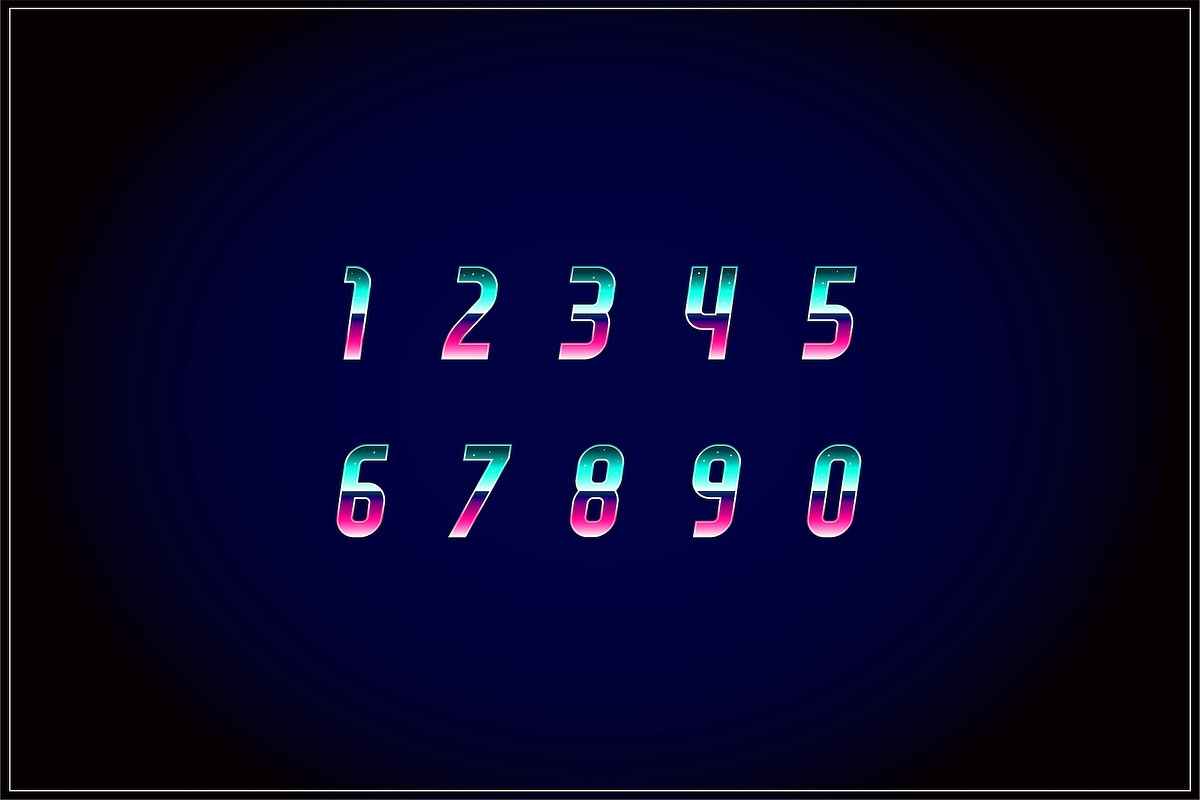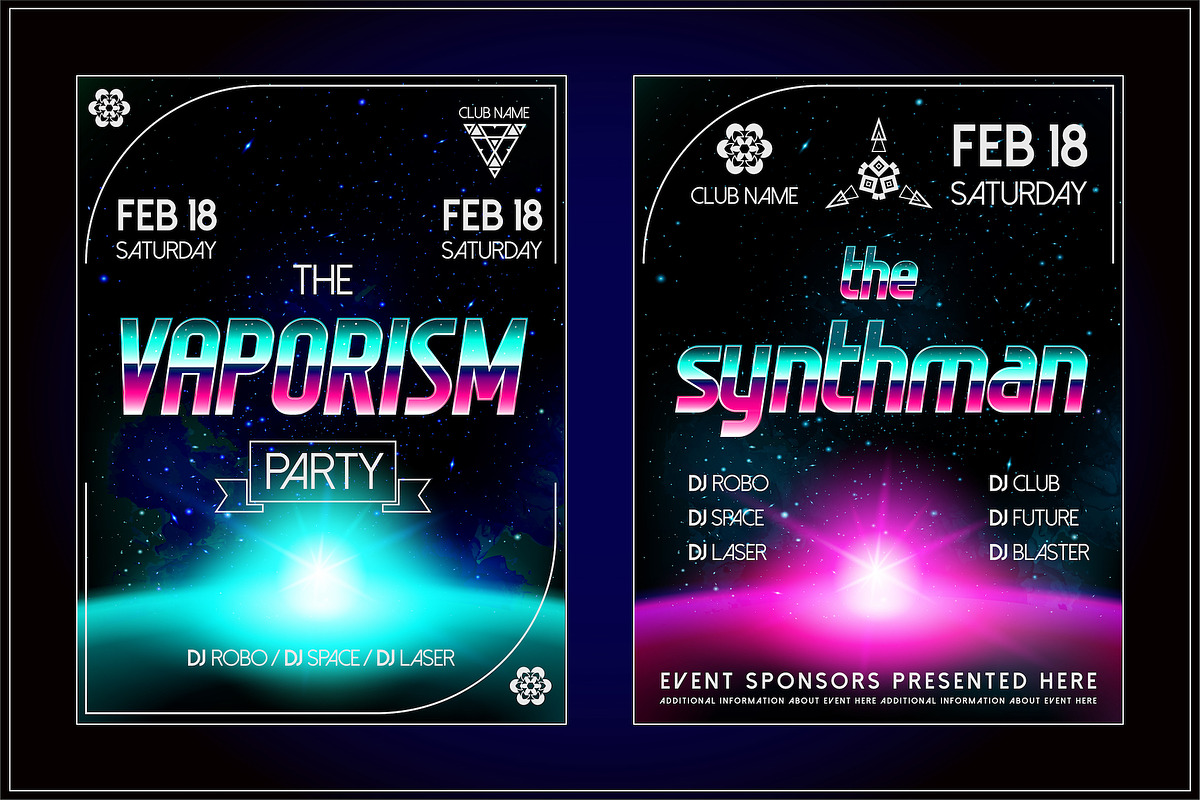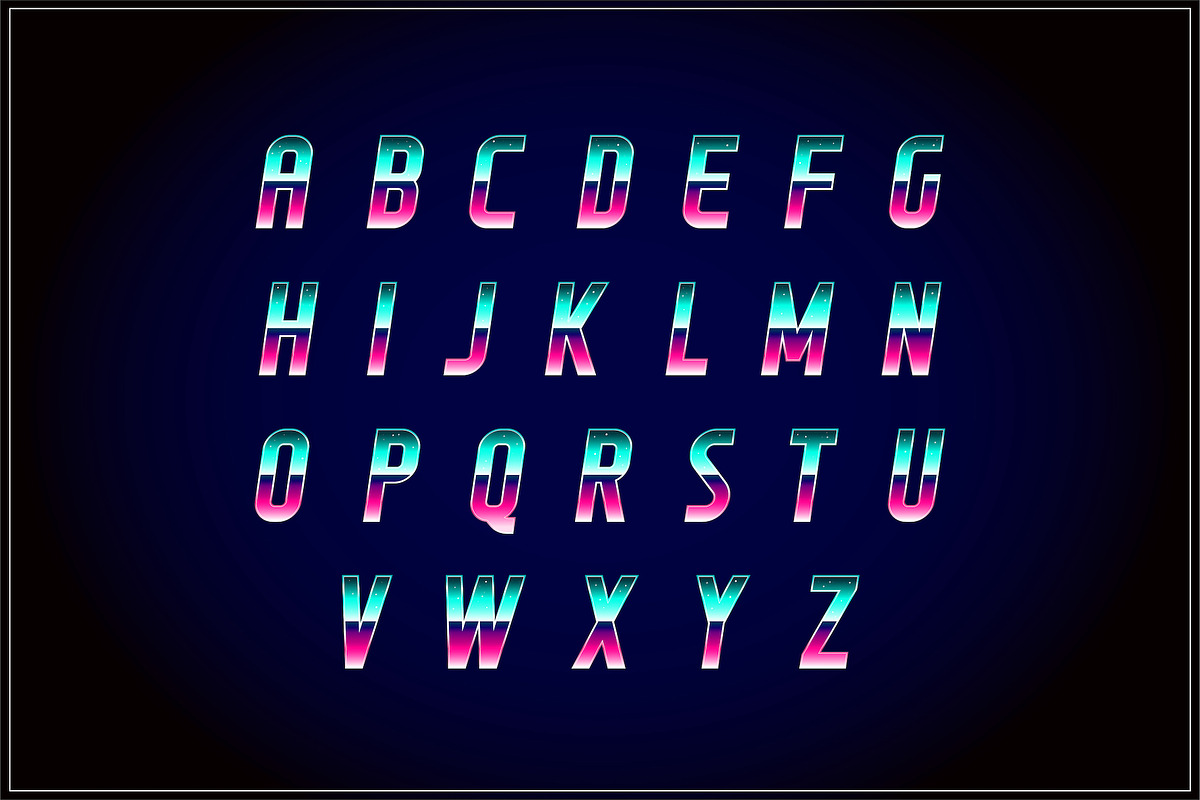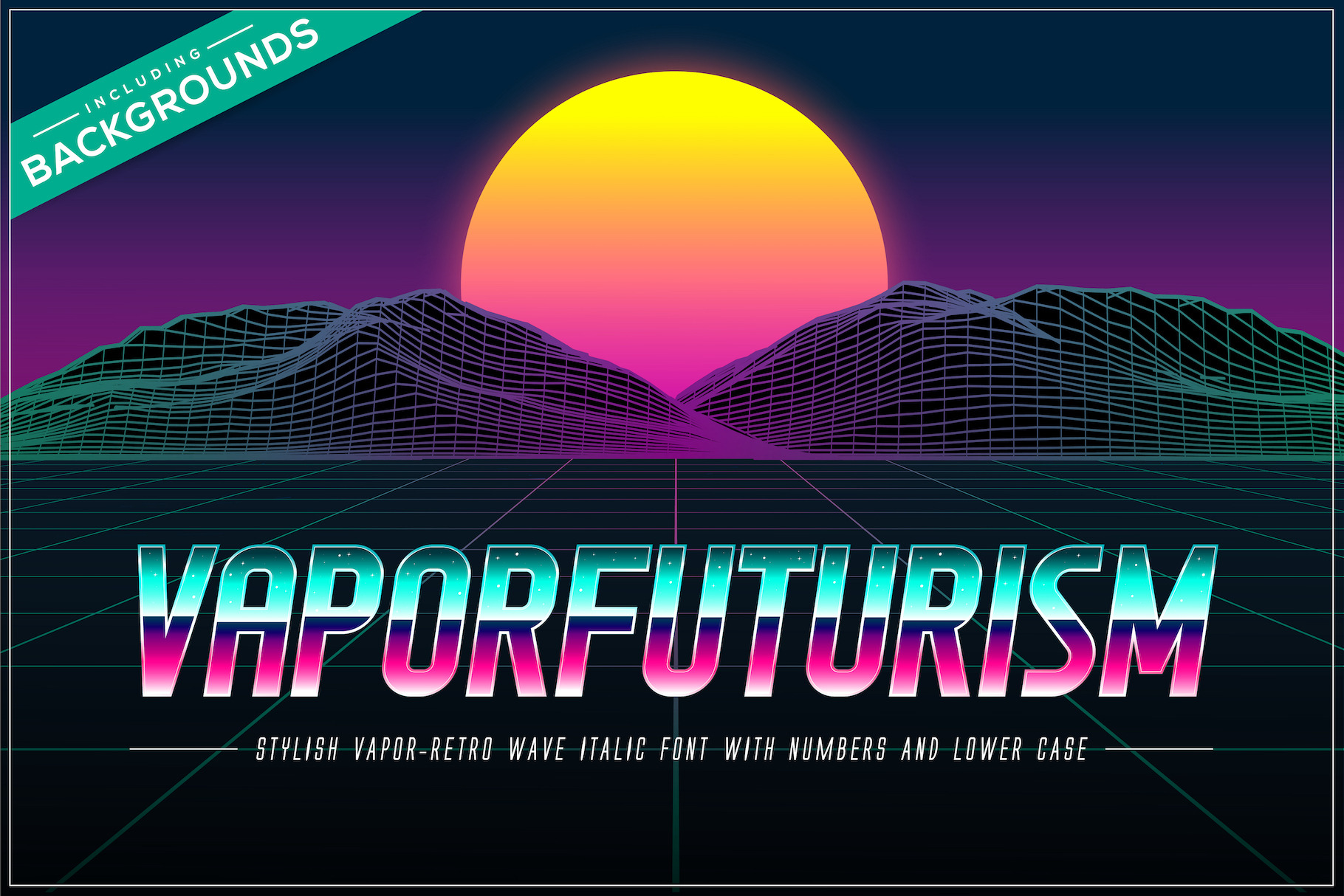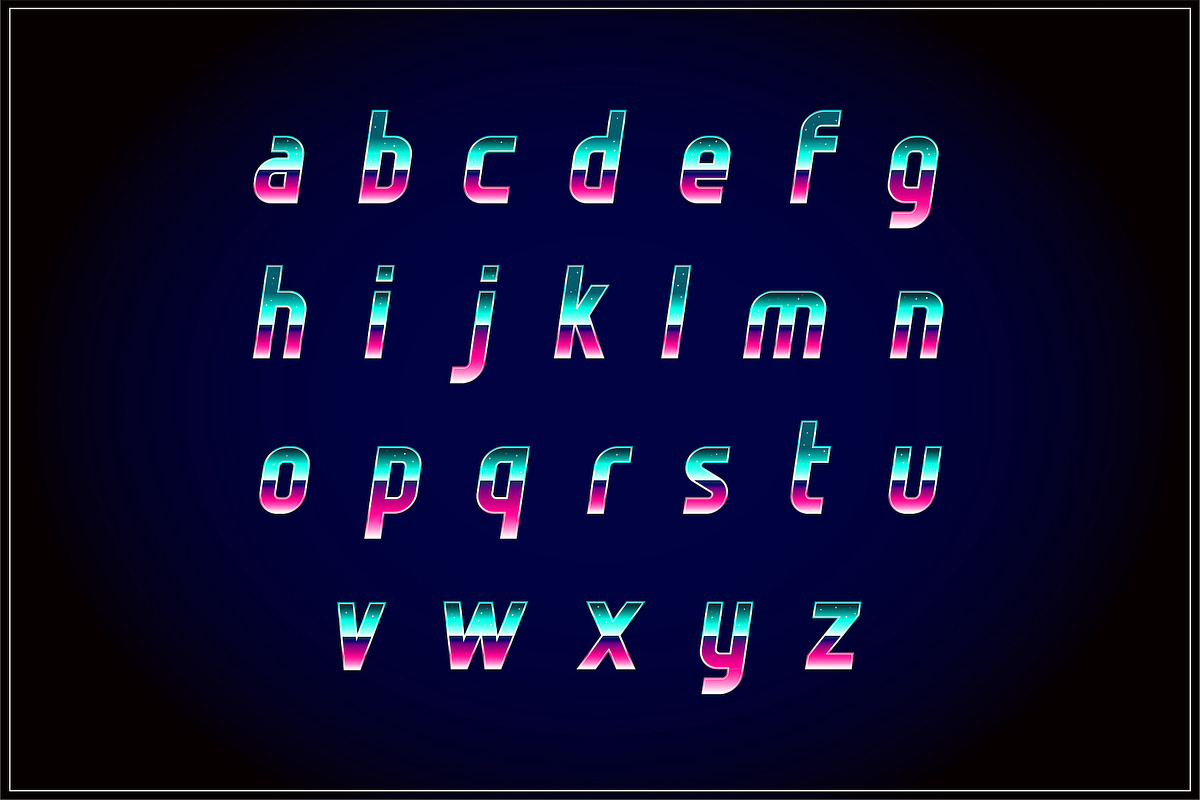
Vaporfuturism OTF Retro Wave Font
This pack contains Vaporfuturism trendy Vapor Wave, Synth Wave, Retro Wave Styled Color OpenType Font in .OTF file format with the lower-case, symbols and numbers (Adobe Illustrator / Photoshop 2018+). Also this pack contains 4 additional vaporwave backgrounds + 2 sample flyers. Each letter, number and symbol also introduced in big size PNGs and PSD's with transparency.